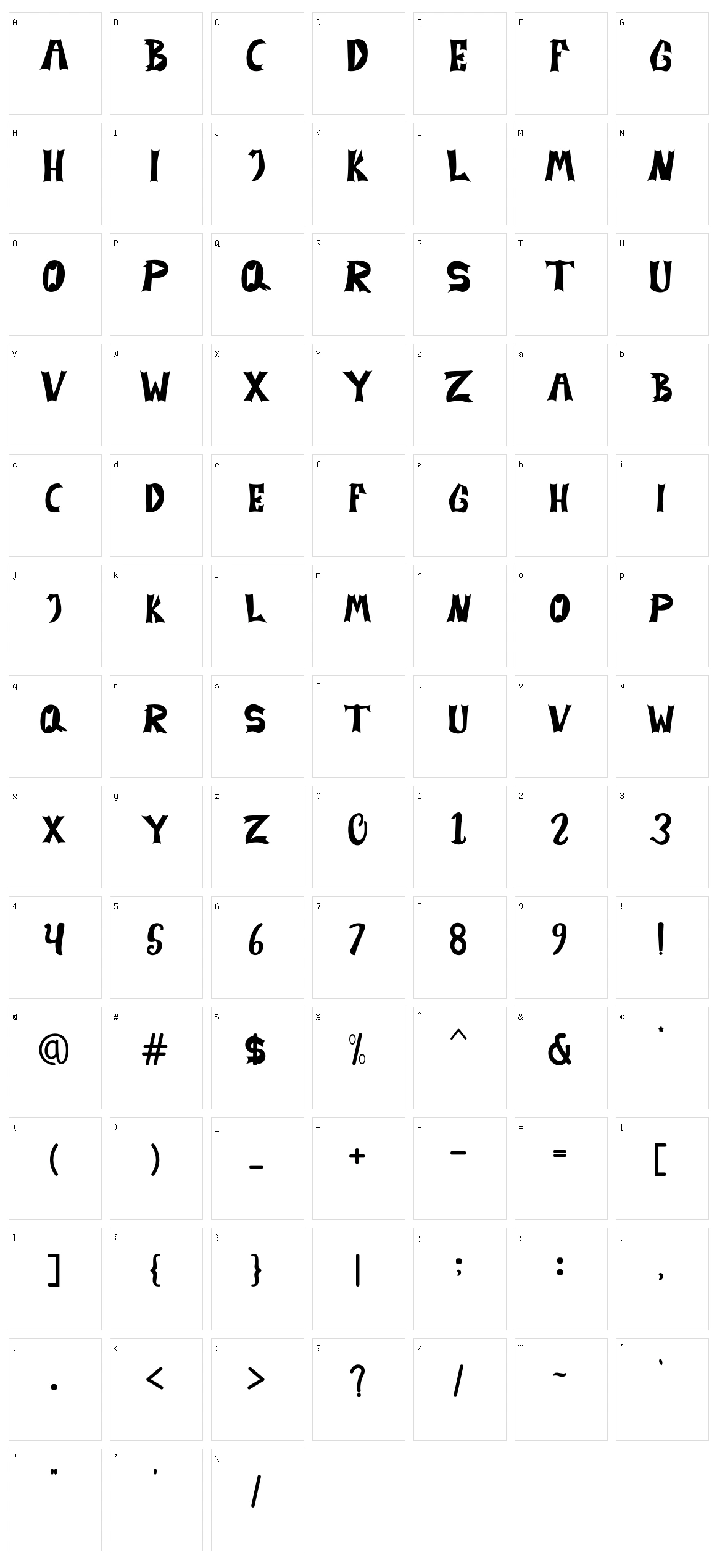
The free font Monster Night is carefully designed by Alfin Ridhowi, showcasing a thoughtful balance of creativity and usability and falls under the Halloween font style. When you download the ZIP file, it contains only 31.79 KB of font files, making it lightweight and quick to download. Please review the license details below to understand permitted usage and distribution rights. If license information is not available, we recommend using this font for personal projects only or contacting the author directly for commercial usage permissions.